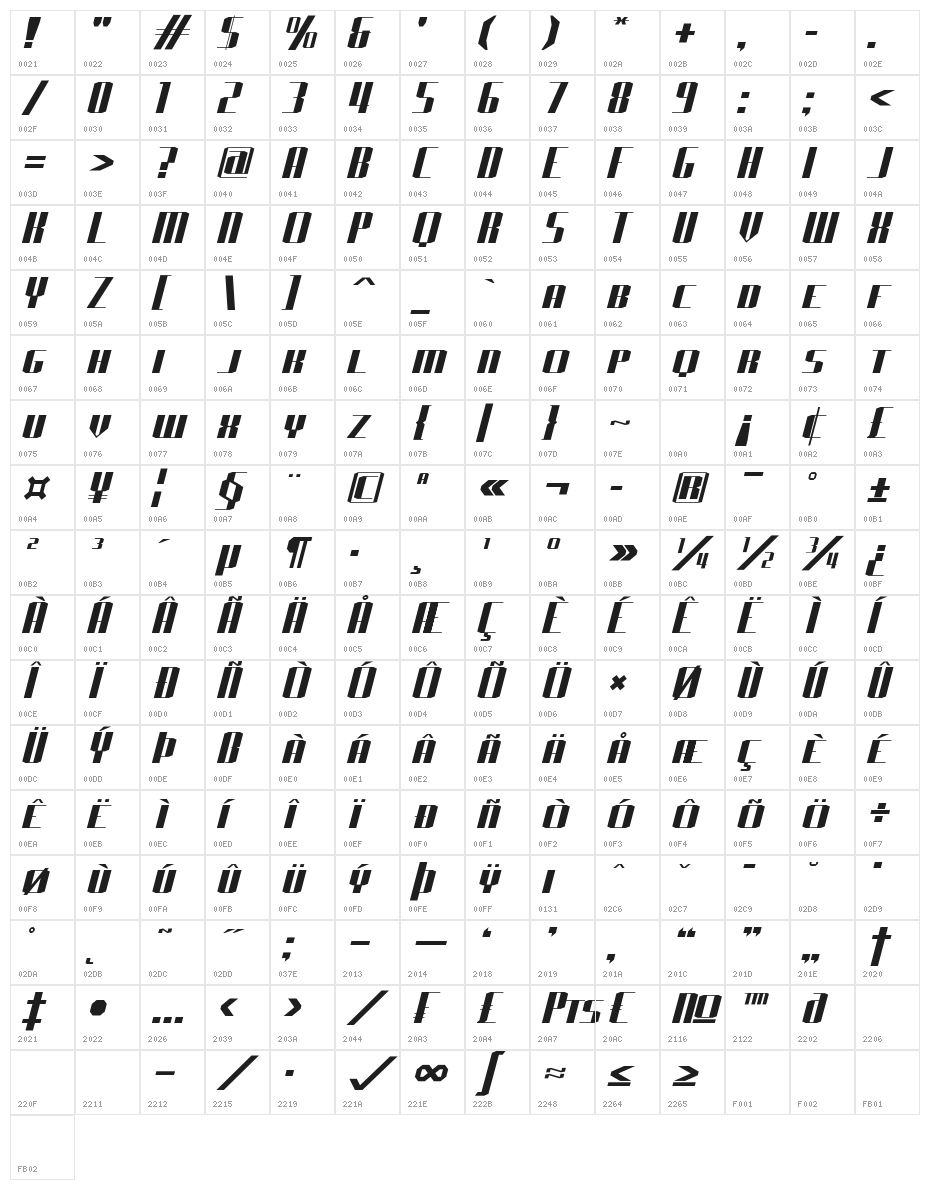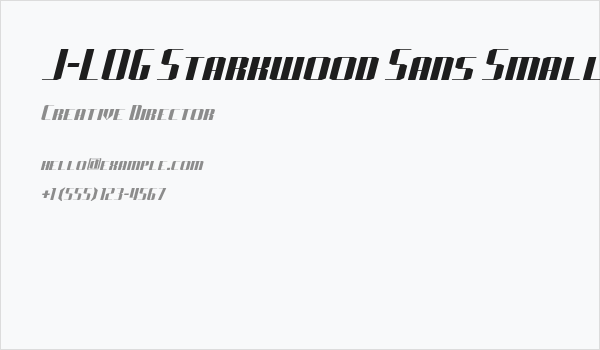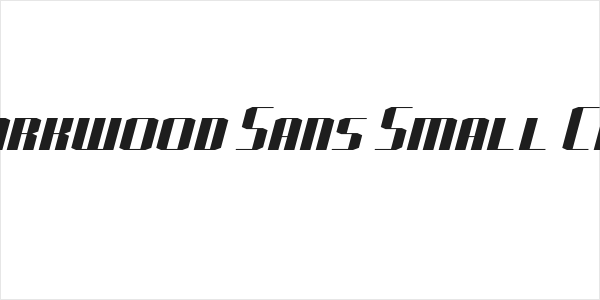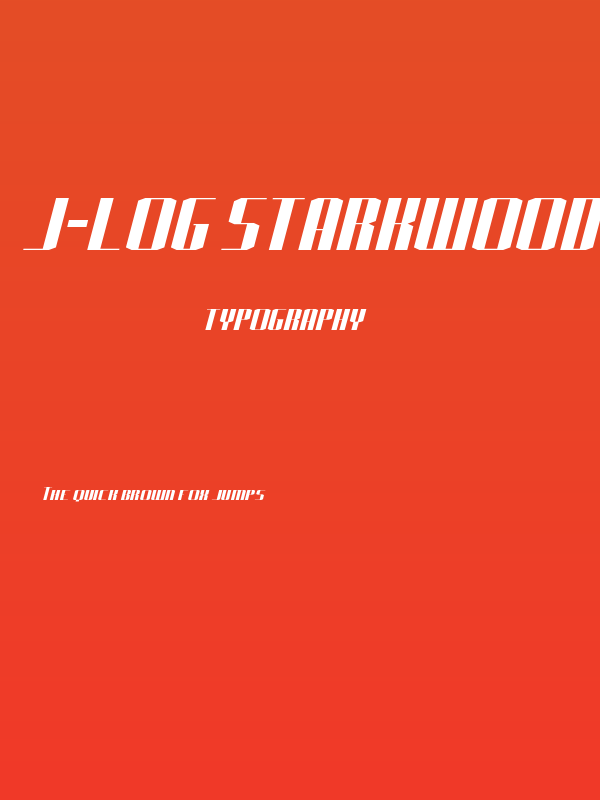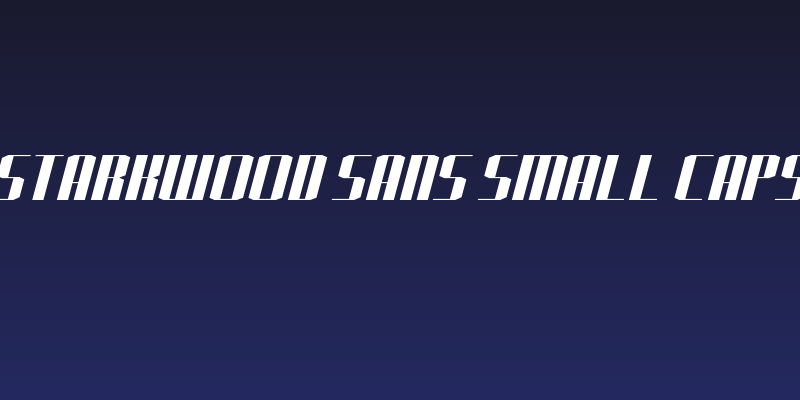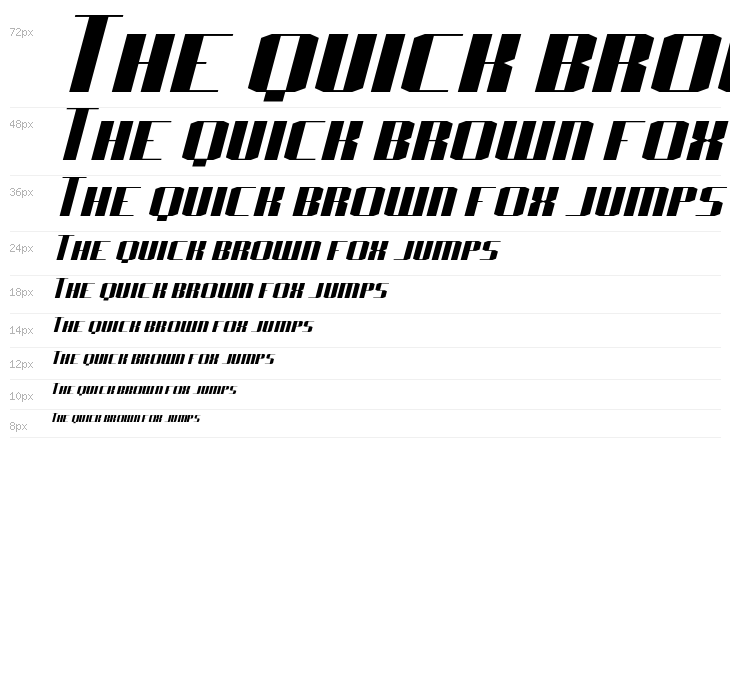
J-LOG Starkwood Sans Small Caps Italic Font
J-LOG Starkwood Sans Small Caps Italic Description
This font features a bold and dynamic design with a distinct slant, giving it a sense of motion and energy. The characters are constructed with sharp, angular lines and a geometric style, creating a modern and futuristic appearance. The uppercase and lowercase letters maintain a consistent height, emphasizing the small caps style. The numbers and special characters follow the same angular and slanted design, ensuring uniformity across all glyphs. This font's strong visual impact makes it suitable for attention-grabbing applications.
Proposed ProjectsIdeal for branding, posters, sports team logos, and any project requiring a bold, dynamic typeface.